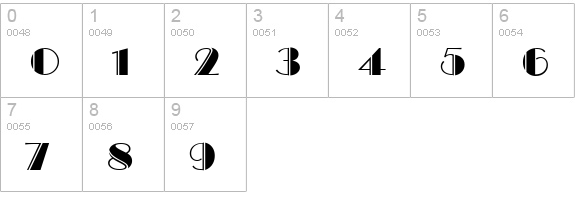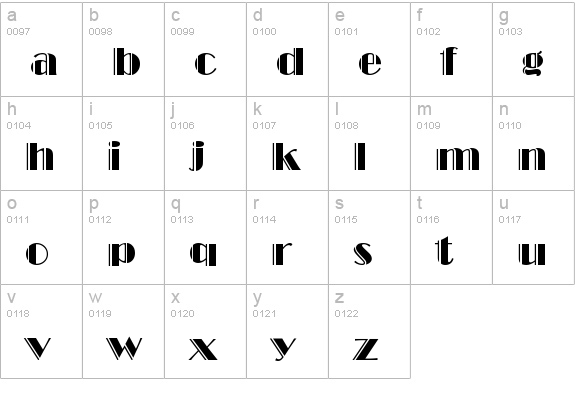
BroadwayEngD Font Details
BroadwayEngD font is a stunning and elegant typeface that exudes sophistication and charm. With its bold and stylish design, this font is perfect for creating eye-catching headings, titles, and logos. Its sleek lines and classic appeal make it a versatile choice for a wide range of design projects. Best of all, BroadwayEngD font is available for free download at FontsMarket.com. Whether you're a professional designer or just looking to add a touch of elegance to your personal projects, this font is sure to impress. Don't miss out on the opportunity to enhance your creations with the timeless beauty of BroadwayEngD font, now easily accessible for free at FontsMarket.com.